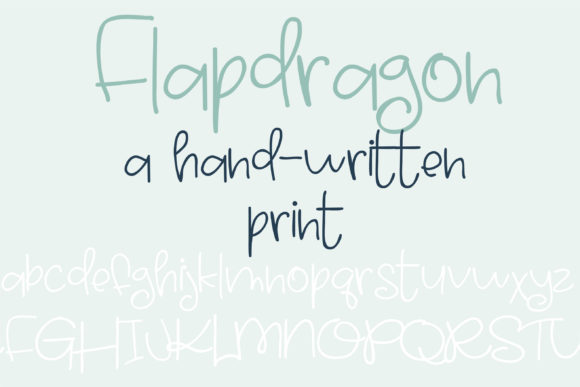
Introducing PN Flapdragon Font, a whimsical script font infused with charm and intrigue. The brainchild of the talented Illustration Ink, this handcrafted masterpiece brings a unique touch to your creative endeavors, breathing life into your words and captivating your audience.
With its playful curves and expressive lines, PN Flapdragon Font dances across the page, evoking a sense of lightheartedness and joy. The font's distinct personality shines through in its characters, each one meticulously crafted to capture the essence of hand-lettering. Whether you're crafting logos, designing invitations, or simply adding a touch of whimsy to your everyday projects, PN Flapdragon Font is the perfect choice.
This versatile script font comes in two captivating weights: Bold and Demibold. The Bold weight exudes a confident and striking presence, while the Demibold weight adds a touch of playful elegance. Mix and match these weights to create stunning contrasts and visual depth in your designs.
Unleash your creativity and let your imagination soar with PN Flapdragon Font. Its playful nature makes it perfect for children's books, invitations, greeting cards, and social media graphics. The font's bold strokes and expressive lines add a touch of charm to posters, flyers, and branding materials, ensuring your messages stand out from the crowd.
If you're seeking a font that sparks joy, wonder, and endless creative possibilities, PN Flapdragon Font is your perfect match. Its enchanting characters and versatility make it a must-have for designers, artists, and anyone who loves to add a touch of magic to their projects. Let PN Flapdragon Font transport you to a world of imagination and creativity, where your words come alive with personality and flair.